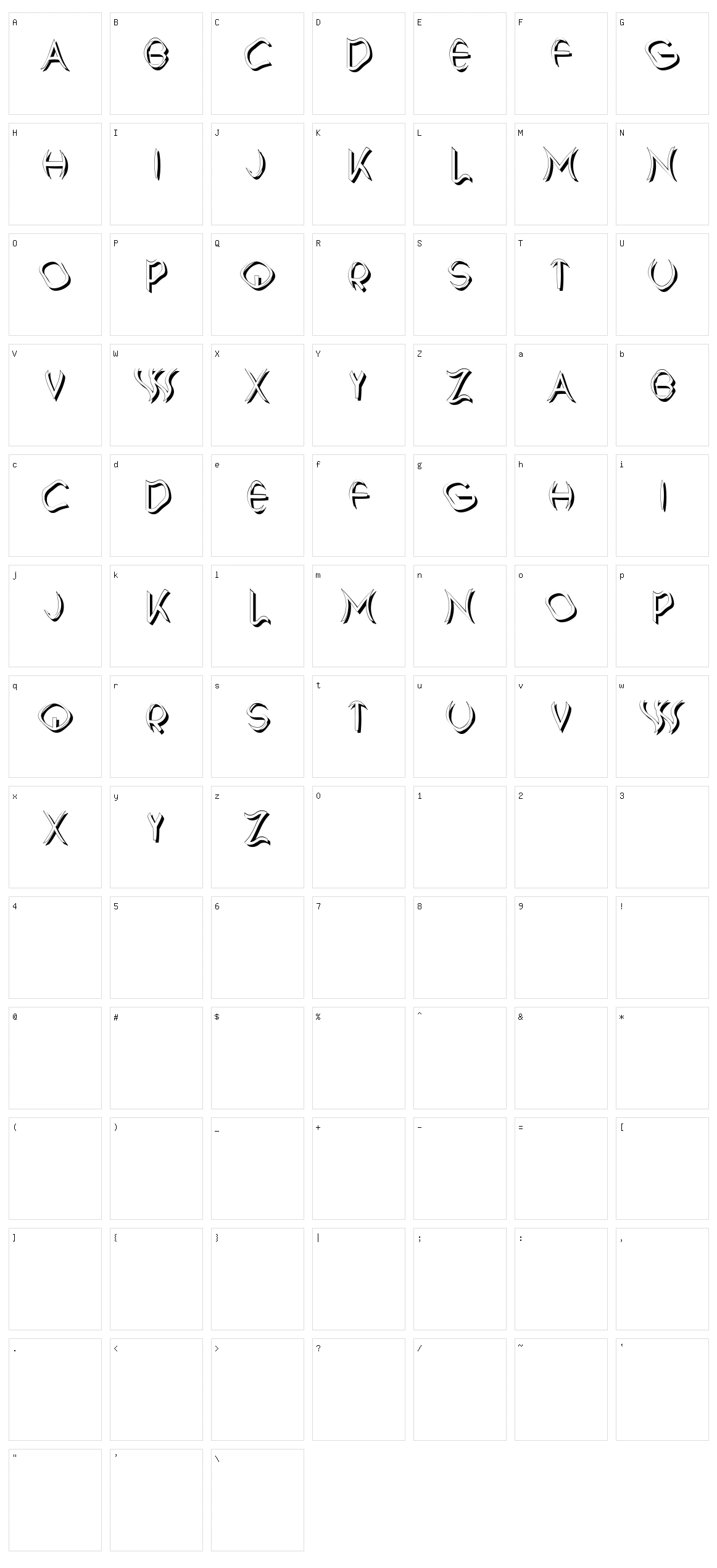
The free font Maverick is carefully designed by Vladimir Nikolic, showcasing a thoughtful balance of creativity and usability and falls under the Distorted font style. When you download the ZIP file, it contains only 24.99 KB of font files, making it lightweight and quick to download. Please review the license details below to understand permitted usage and distribution rights. If license information is not available, we recommend using this font for personal projects only or contacting the author directly for commercial usage permissions.